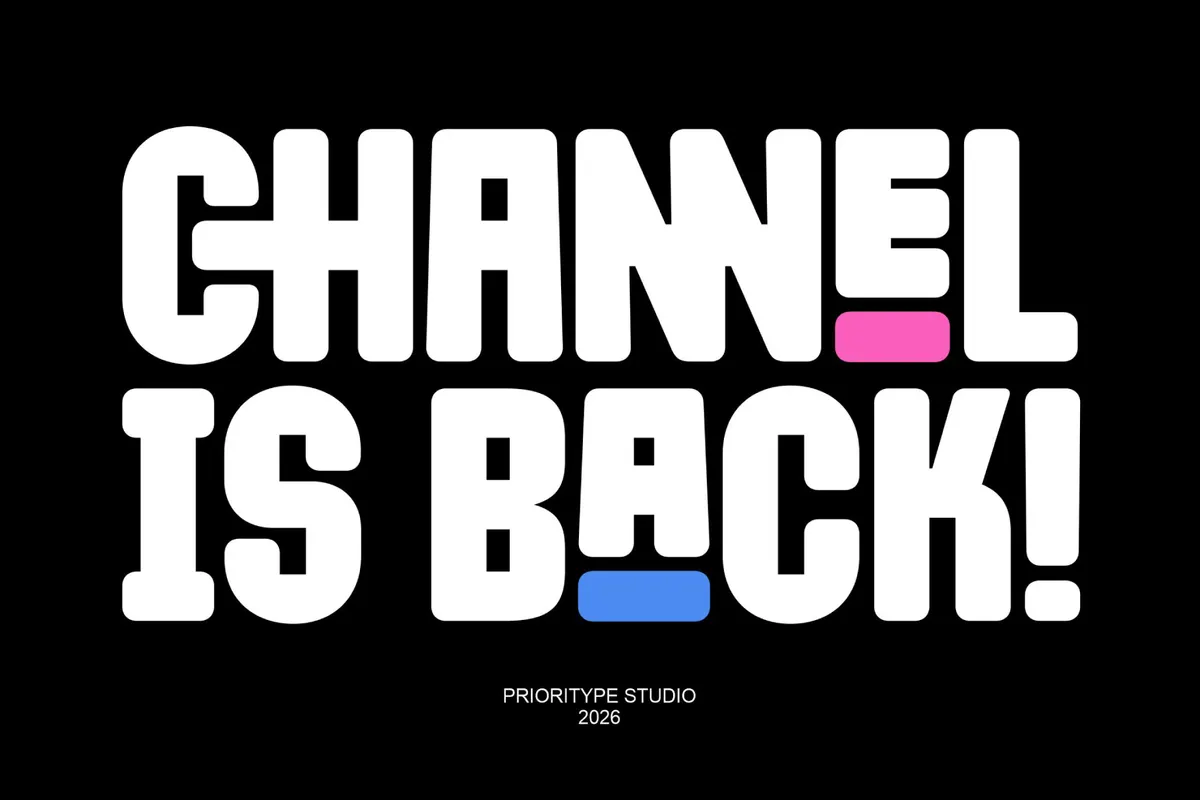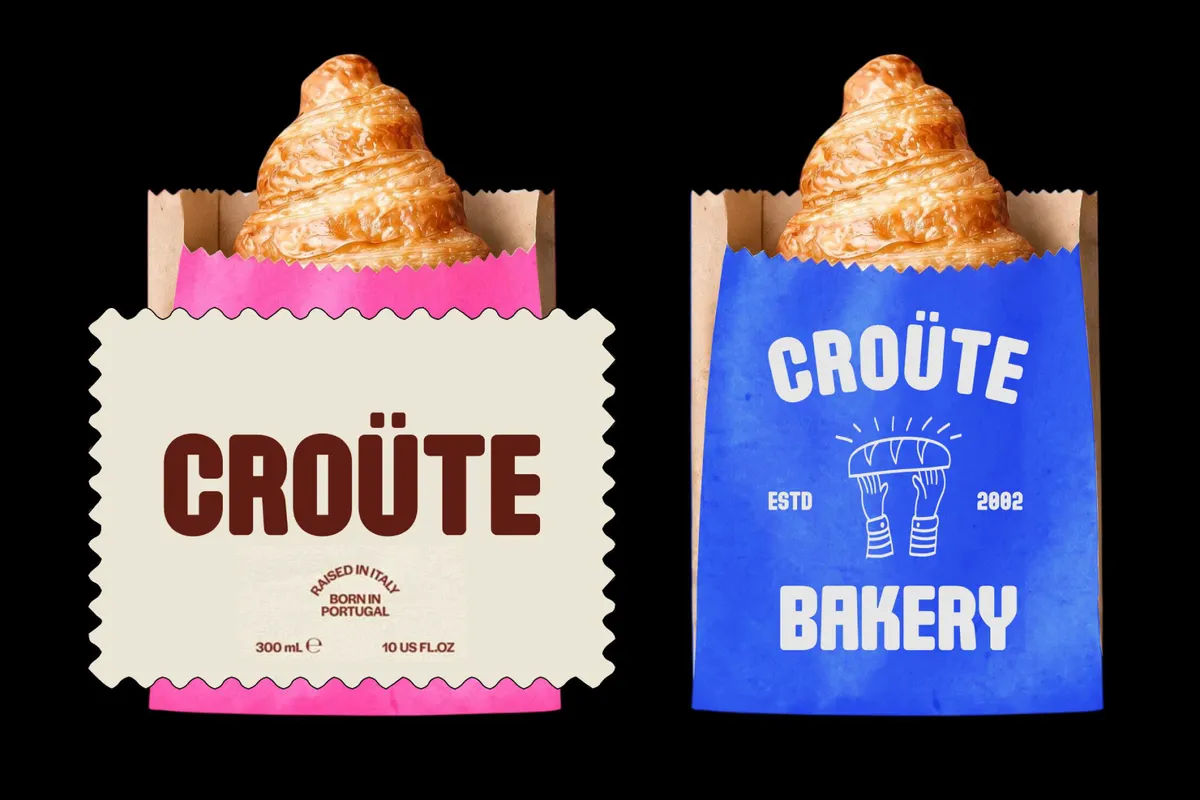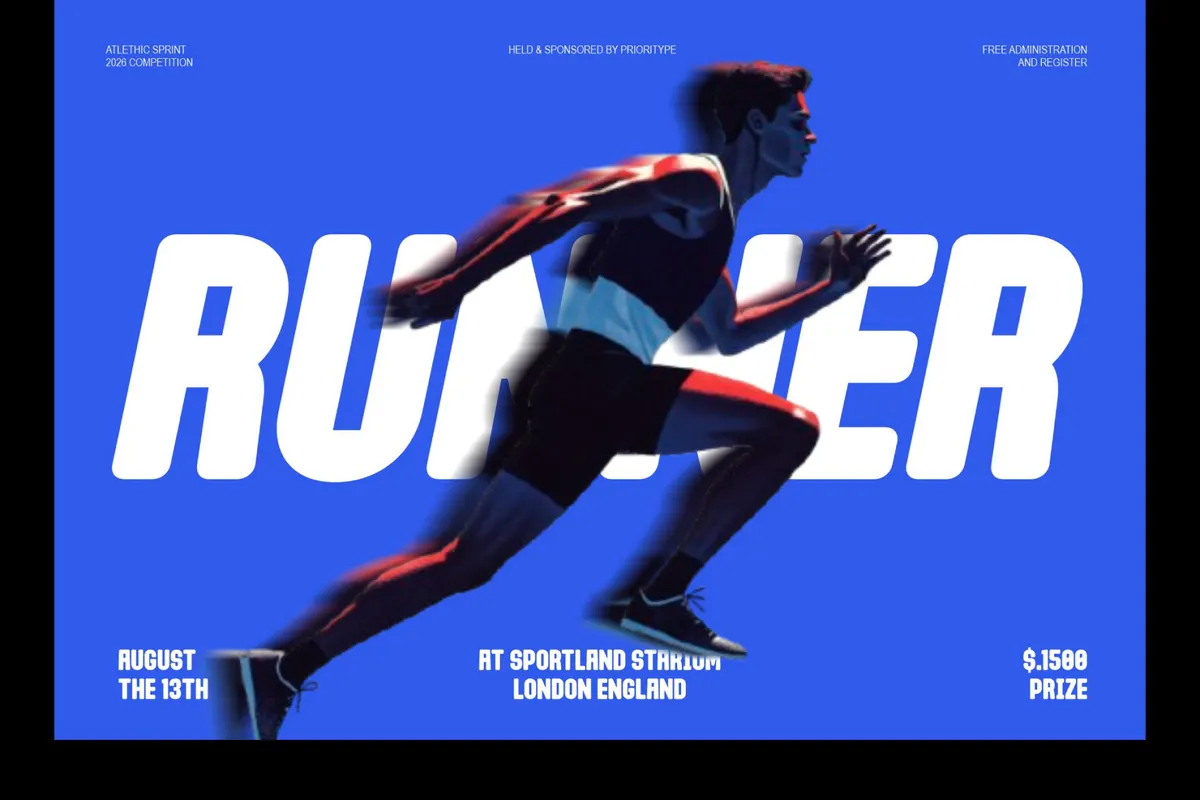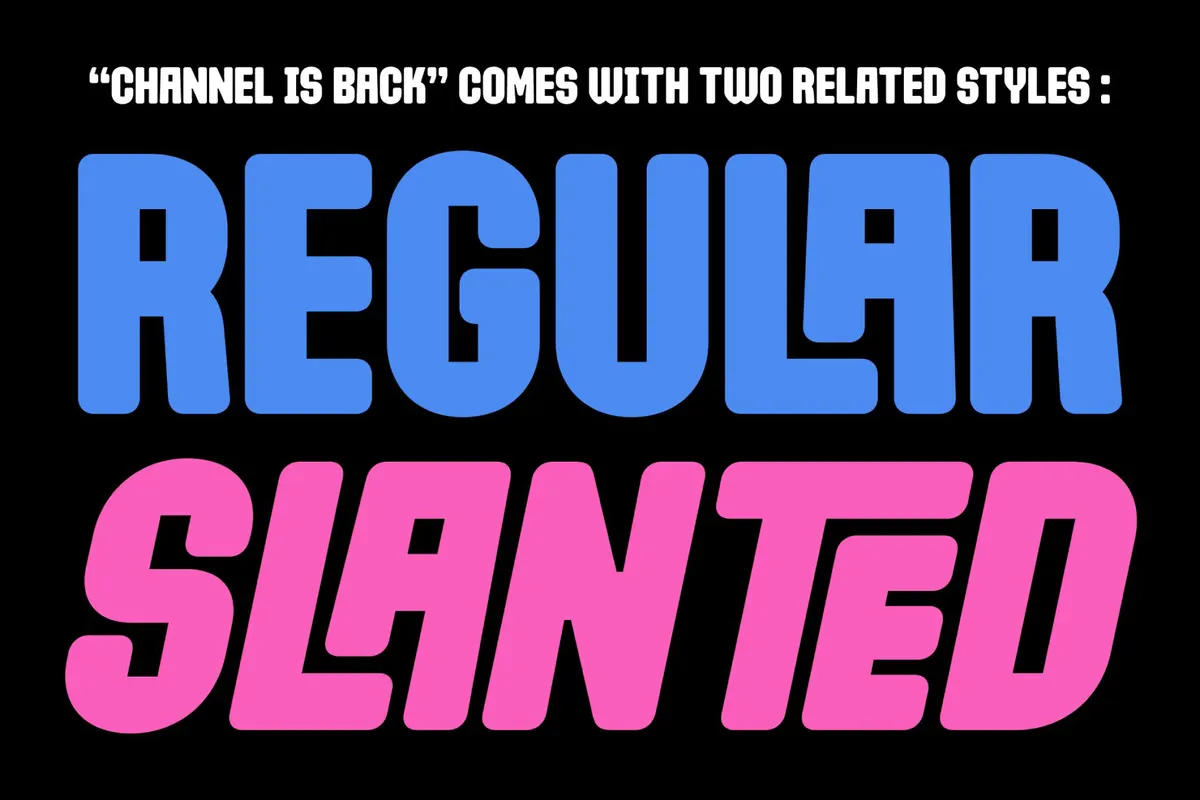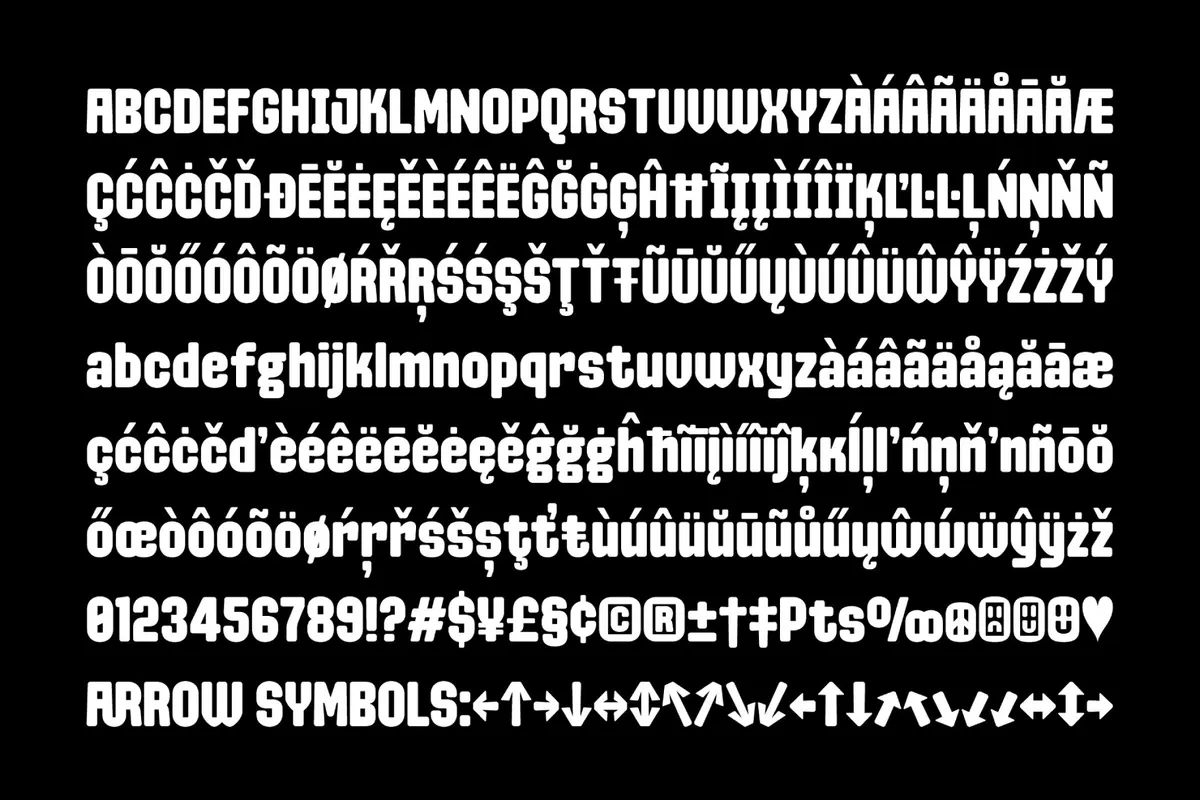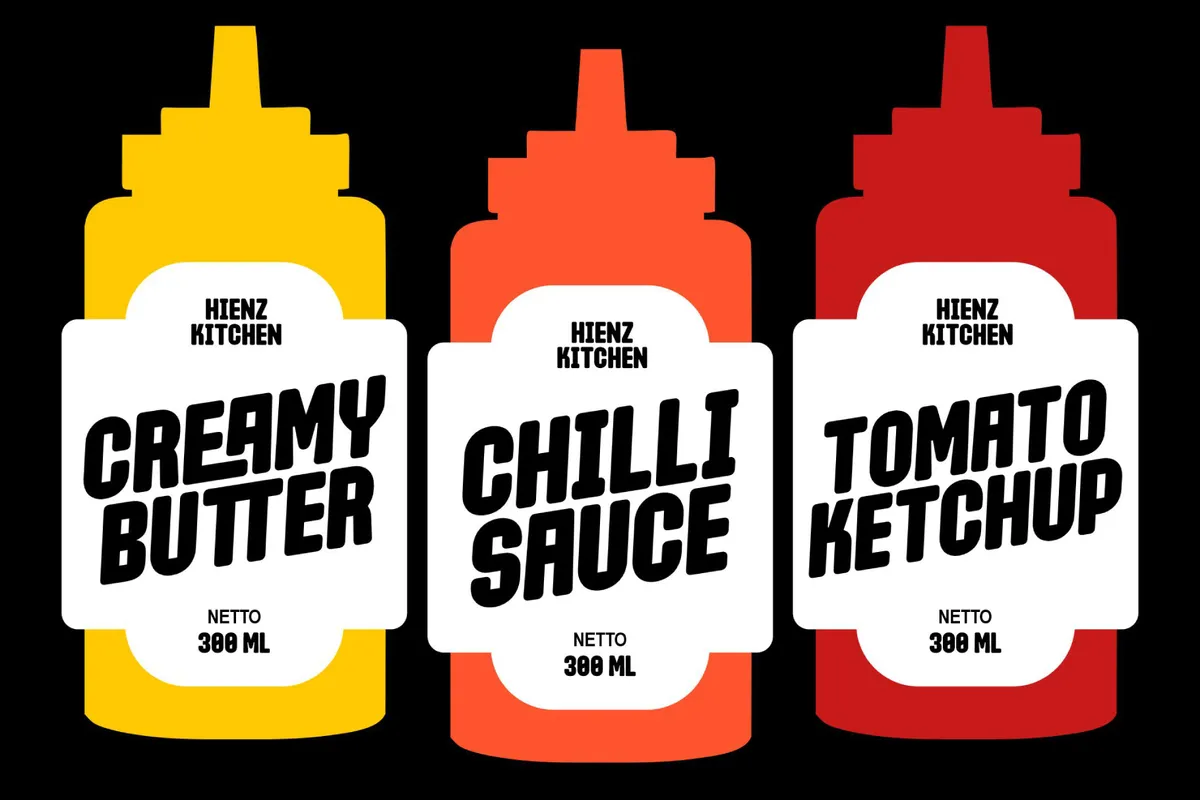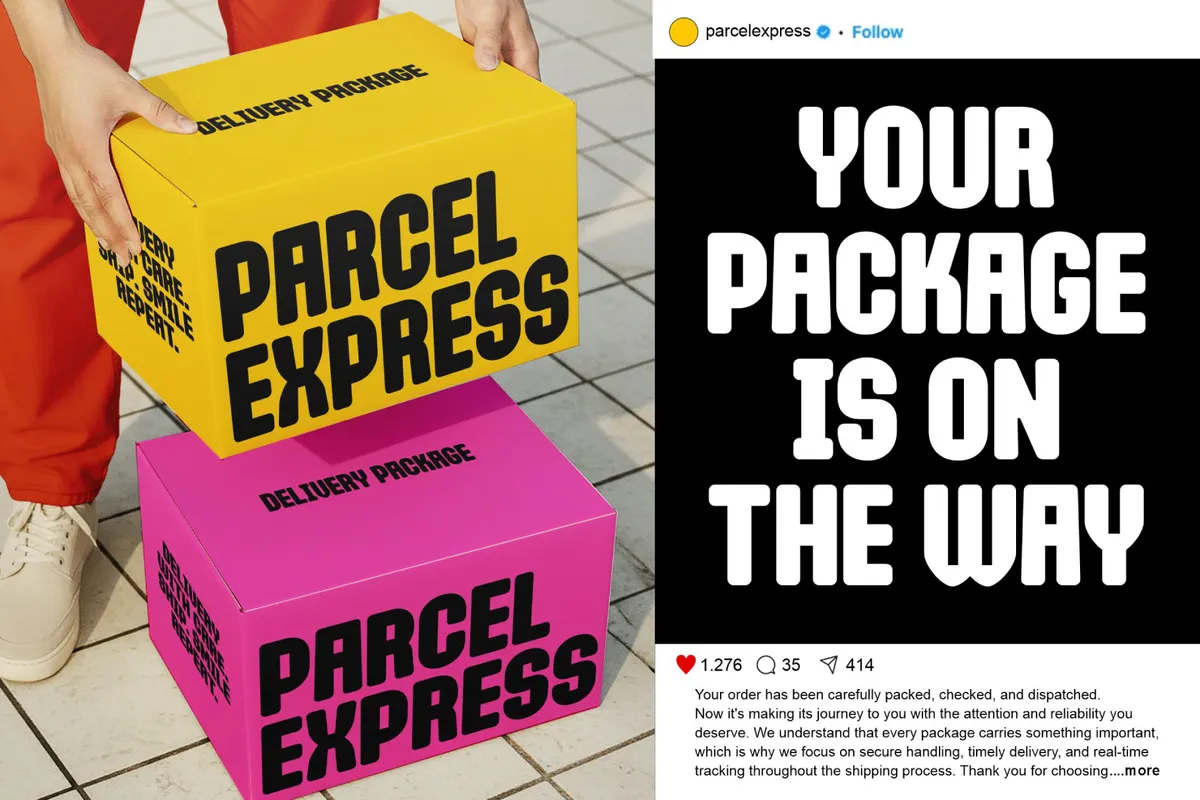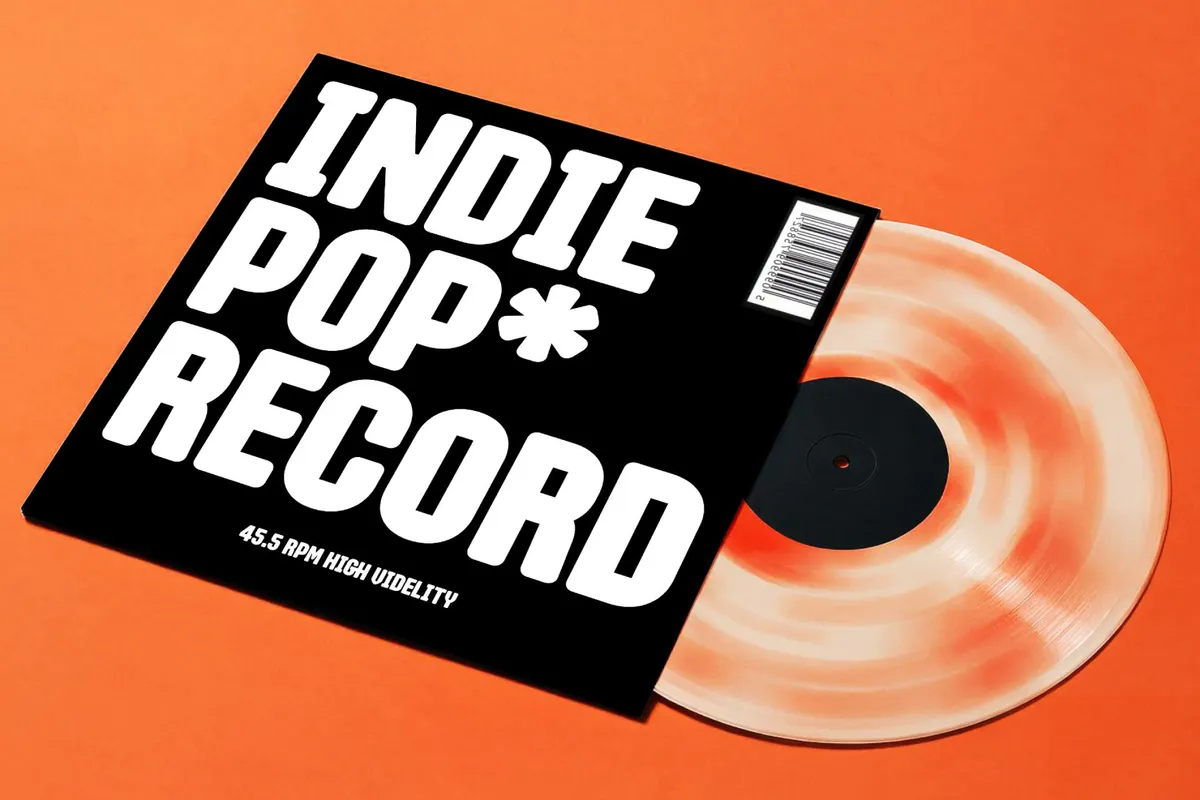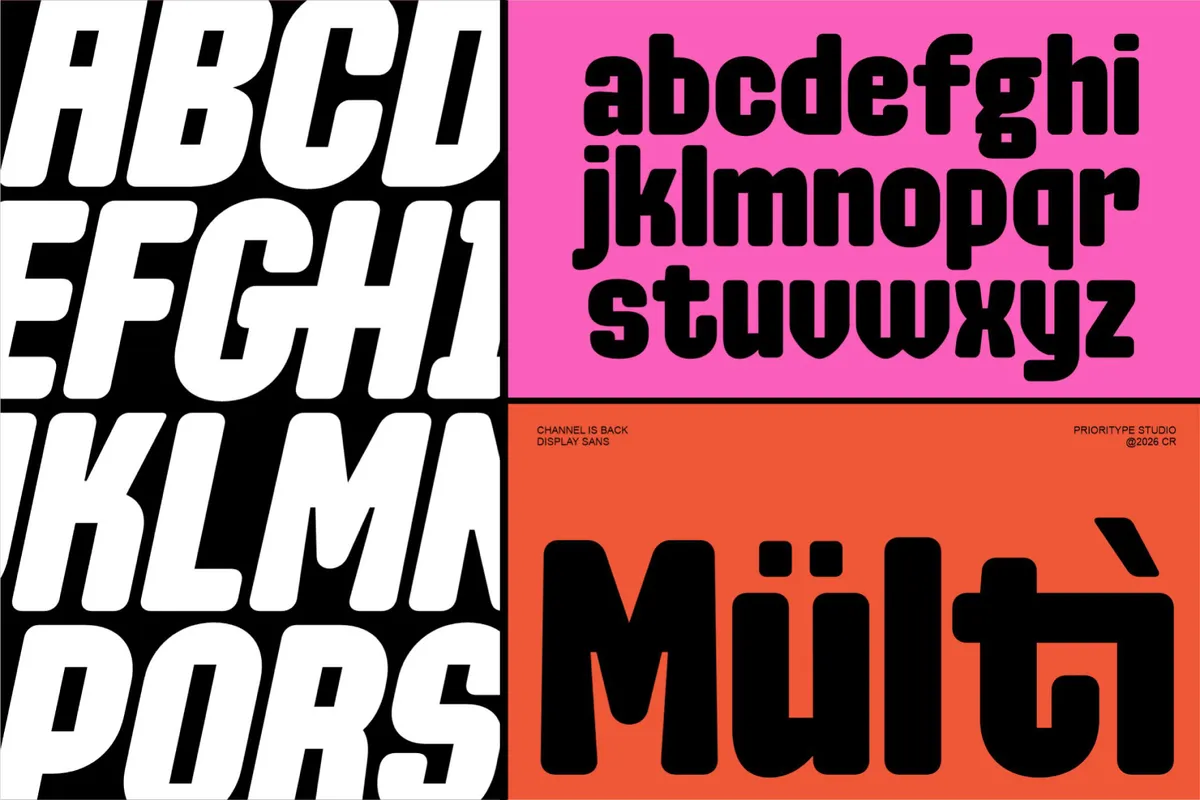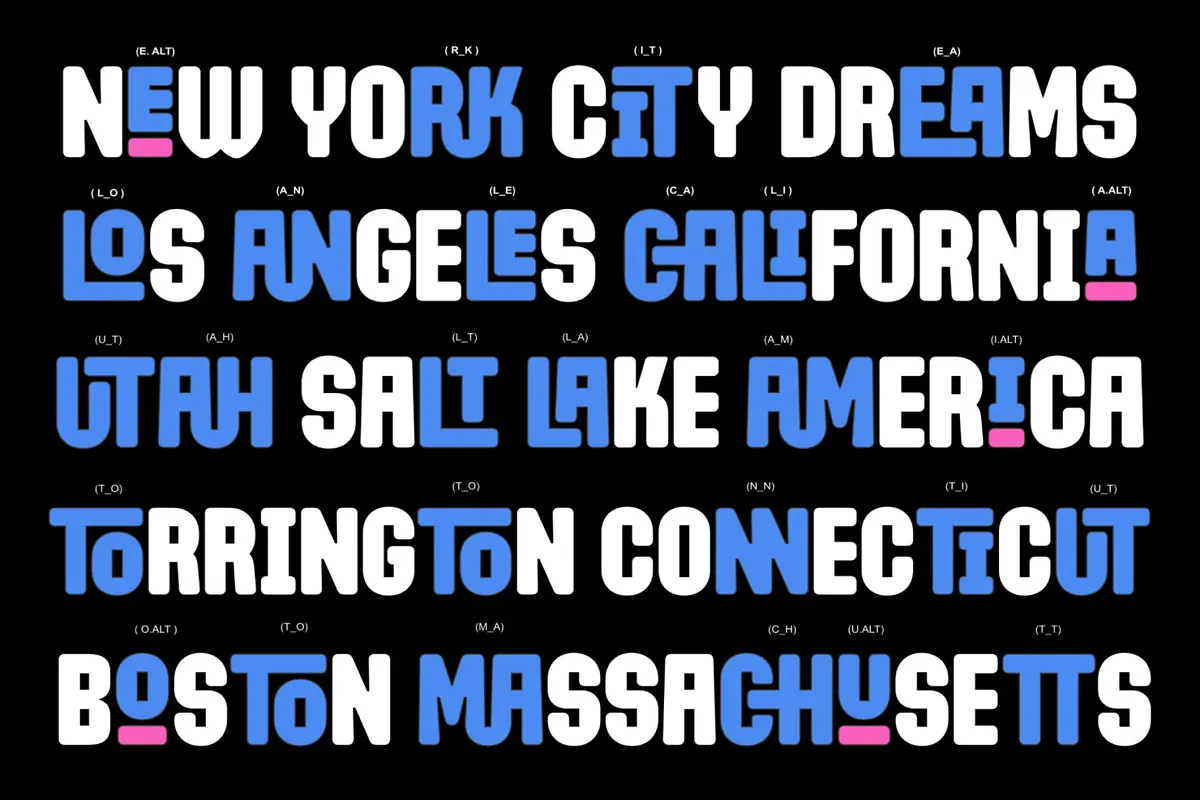
Channel Is Back - Groovy Connected Display Font
Channel Is Back runs on a groovy connector system — dozens of custom two-letter ligatures pull neighboring caps into single locked shapes, so words read as one continuous block instead of separate stamped letters. Chunky rounded terminals and a solid, no-taper stroke keep the retro feel loud even at poster scale.
The Regular sits upright and stacked, while the companion Slant style leans the same shapes into motion for a punchier headline. Use it for posters, logos, packaging, apparel graphics, album covers, social media headlines, and branding work that wants a retro, connected-letter punch.
60+ custom connecting ligatures, single-letter stylistic alternates, case-sensitive accents, fractions, ordinals & superscript figures;